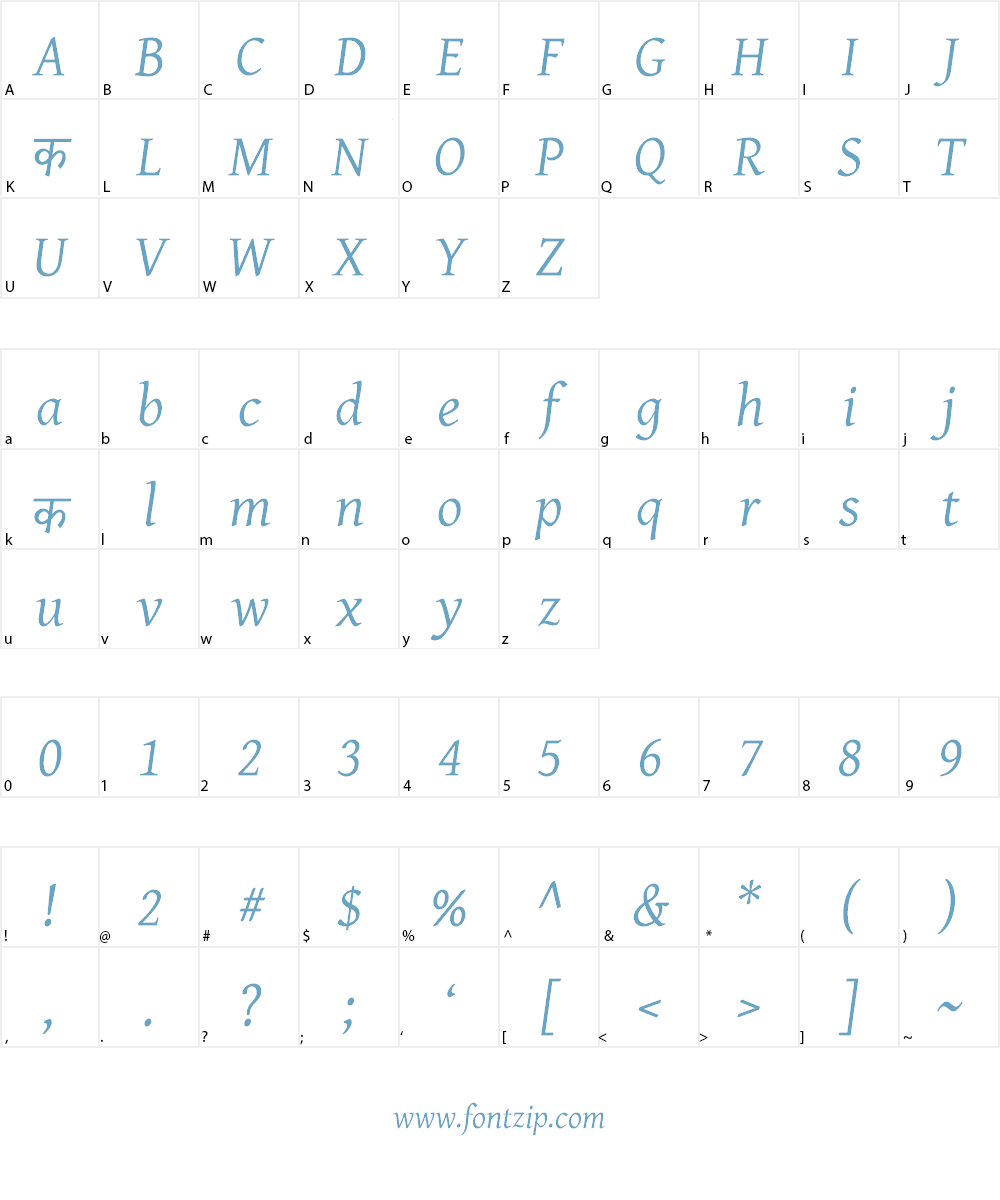
BBT font
A Free Font that replaces the k / K english & european alphabets for another shape for spiritual / philosophical reasons. When you press k / K .....you get a different shape!